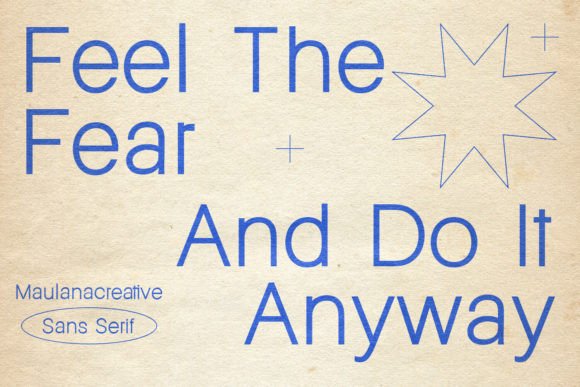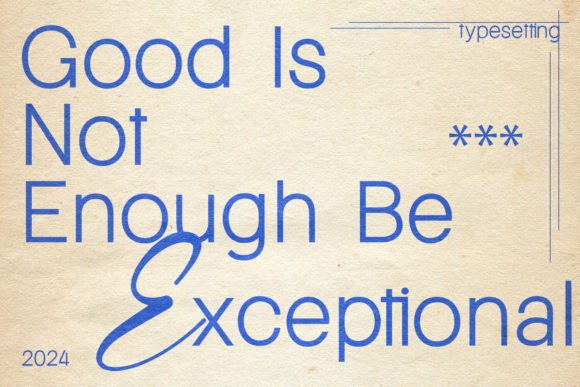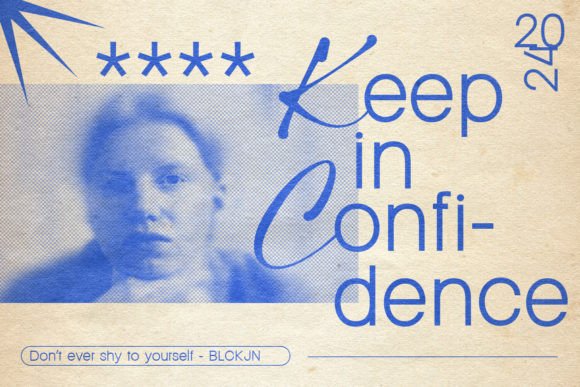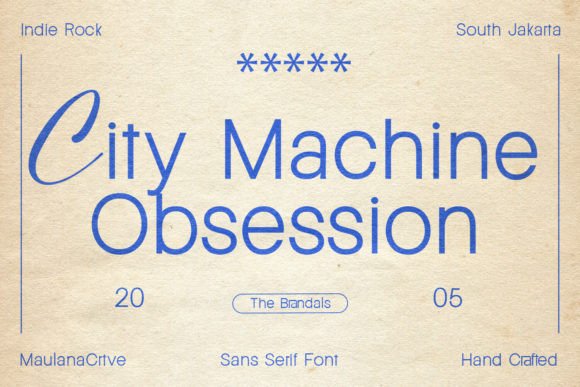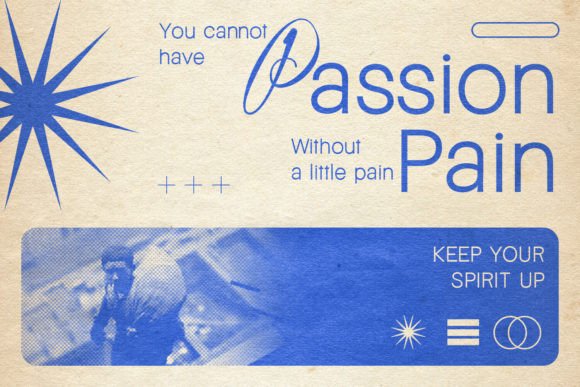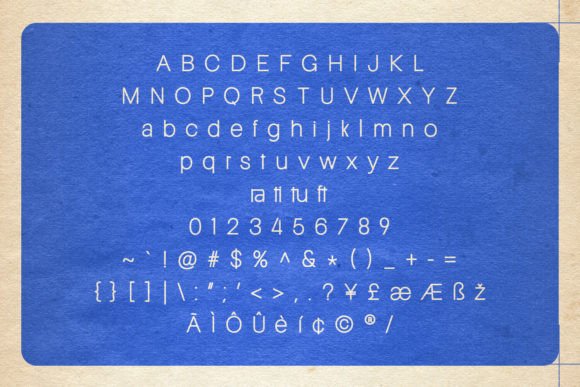
Introducing Grexot Befton: The Ultimate Modern Sans-Serif Display Font
In the world of typography, a good font can make all the difference in the effectiveness of a design. For designers and crafters looking for a clean and modern sans-serif display font, Grexot Befton is an excellent choice. This font is designed to make a statement with its bold, clear letters that are easy to read, making it perfect for big titles, signs, and headlines.
What Makes Grexot Befton Stand Out?
Grexot Befton is a clean and modern sans-serif display font that boasts a simple yet strong style. Its bold and clear letters are designed to grab attention, making it an ideal choice for designers and crafters who want to make a statement with their work. The font’s simplicity ensures that it remains versatile and can be used in a variety of design projects, from posters and flyers to logos and branding materials.
Key Features of Grexot Befton
- Clean and Modern Design: Grexot Befton’s clean and modern design makes it perfect for designers and crafters who want to create fresh and contemporary designs.
- Bold and Clear Letters: The font’s bold and clear letters ensure that your message gets across clearly, making it ideal for big titles, signs, and headlines.
- Easy to Read: Grexot Befton’s simple and uncluttered design makes it easy to read, even at large sizes.
- Simple yet Strong Style: The font’s simple yet strong style makes it perfect for grabbing attention and making a statement.
- Versatile: Grexot Befton’s versatility makes it suitable for a wide range of design projects, from posters and flyers to logos and branding materials.
Why Choose Grexot Befton?
There are many reasons why designers and crafters should choose Grexot Befton for their design projects. Here are a few:
- Effective Communication: Grexot Befton’s bold and clear letters ensure that your message gets across clearly, making it an effective choice for designers and crafters who want to communicate their message effectively.
- Attention-Grabbing: The font’s simple yet strong style makes it perfect for grabbing attention and making a statement.
- Flexibility: Grexot Befton’s versatility makes it suitable for a wide range of design projects, from posters and flyers to logos and branding materials.
- Easy to Use: The font is easy to use and can be easily integrated into your design workflow.
How to Use Grexot Befton in Your Design Projects
Grexot Befton can be used in a variety of design projects, including:
- Posters and Flyers: Use Grexot Befton to create eye-catching posters and flyers that grab attention.
- Logos and Branding Materials: Use the font to create logos and branding materials that are modern and fresh.
- Signs and Headlines: Use Grexot Befton to create signs and headlines that are bold and easy to read.
- Digital Designs: Use the font in digital designs, such as social media graphics and website headers.
In conclusion, Grexot Befton is an excellent choice for designers and crafters looking for a clean and modern sans-serif display font. Its bold and clear letters, simple yet strong style, and versatility make it perfect for a wide range of design projects. Whether you’re creating posters and flyers, logos and branding materials, or signs and headlines, Grexot Befton is a great choice. So why not give it a try and see how it can elevate your design projects?